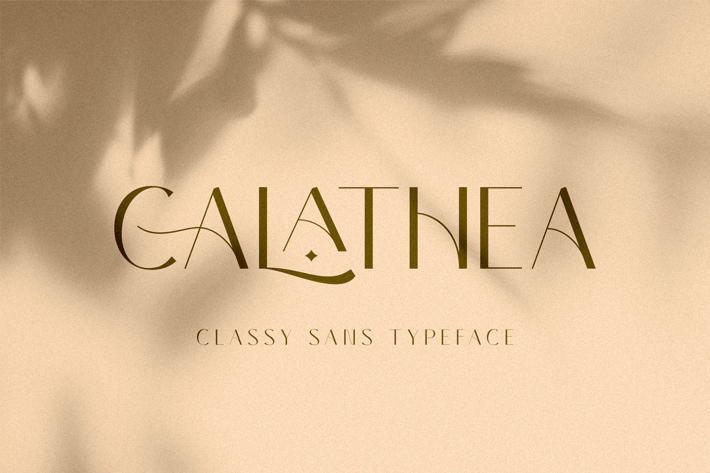
Elegant Sans Serif Font
CALATHEA is a classy elegant typeface with a collection of ligatures and alternates that will make your branding looks established. Calathea typeface is perfect for many projects: fashion, beauty, invitation, photography, or even natural products.
Ligatures & Alternates
Numerals & Punctuation